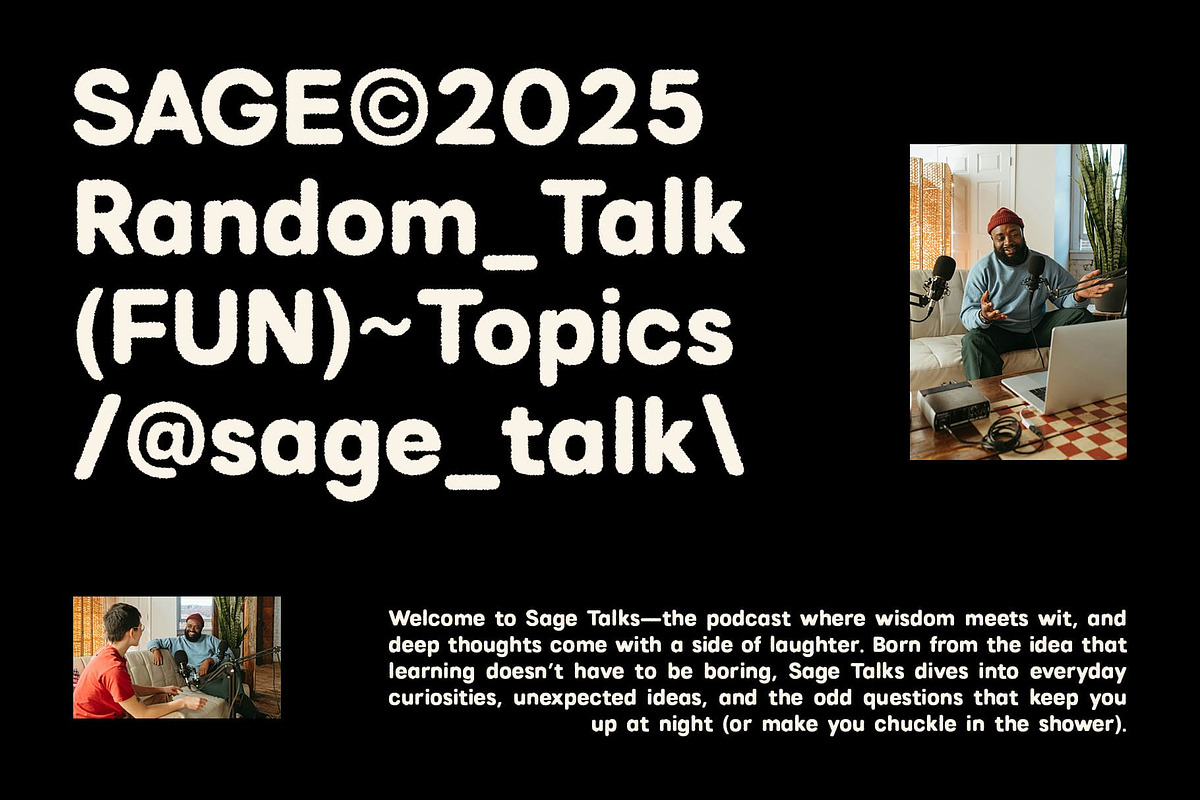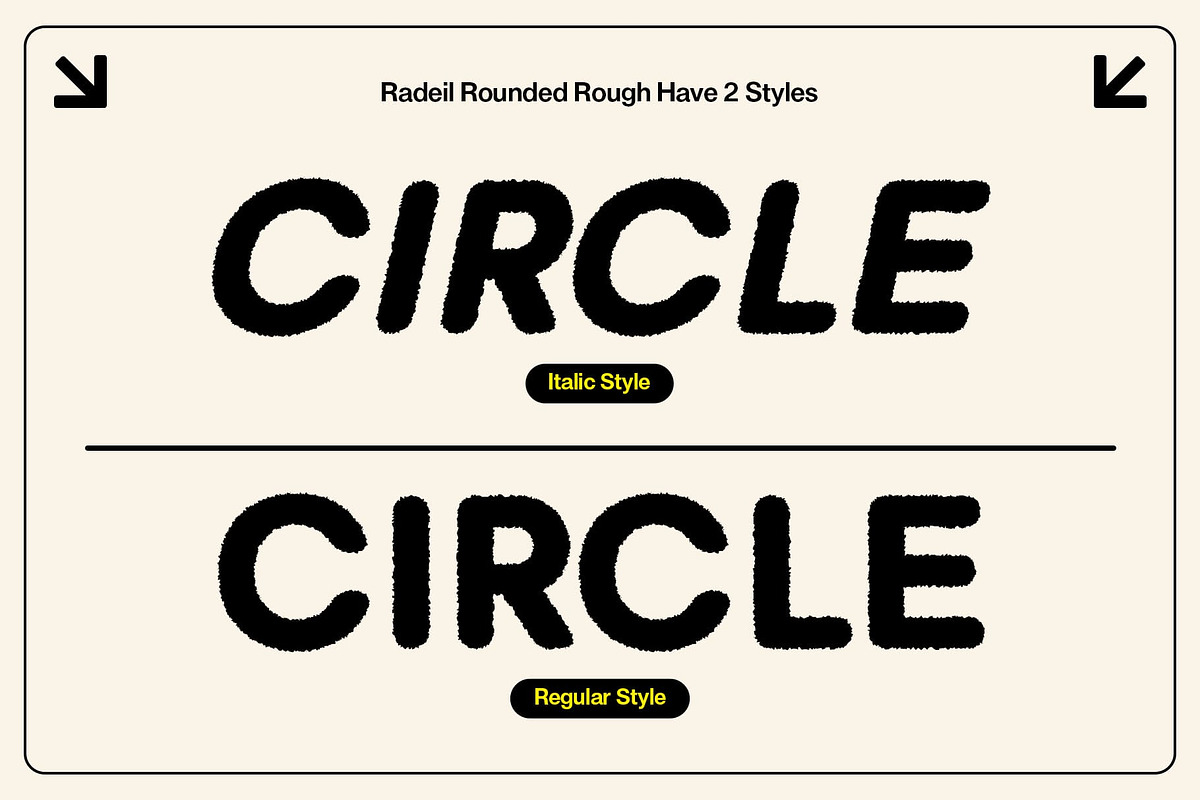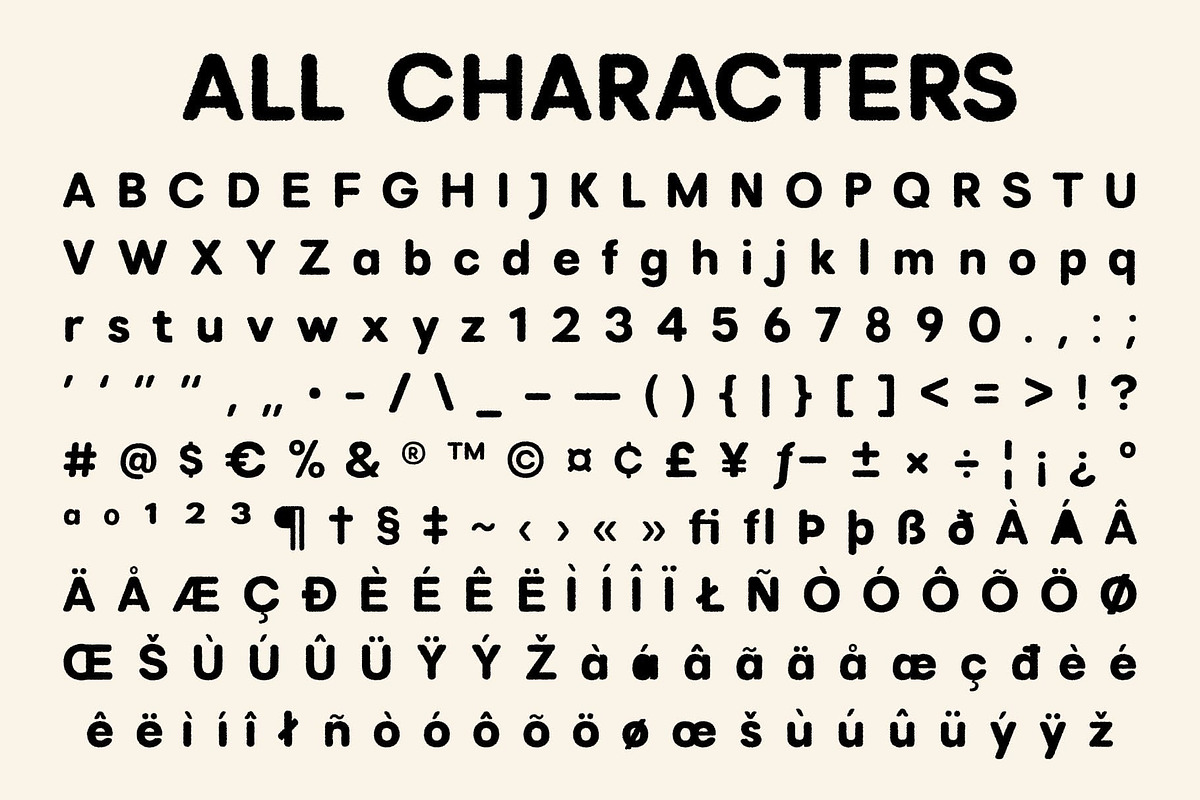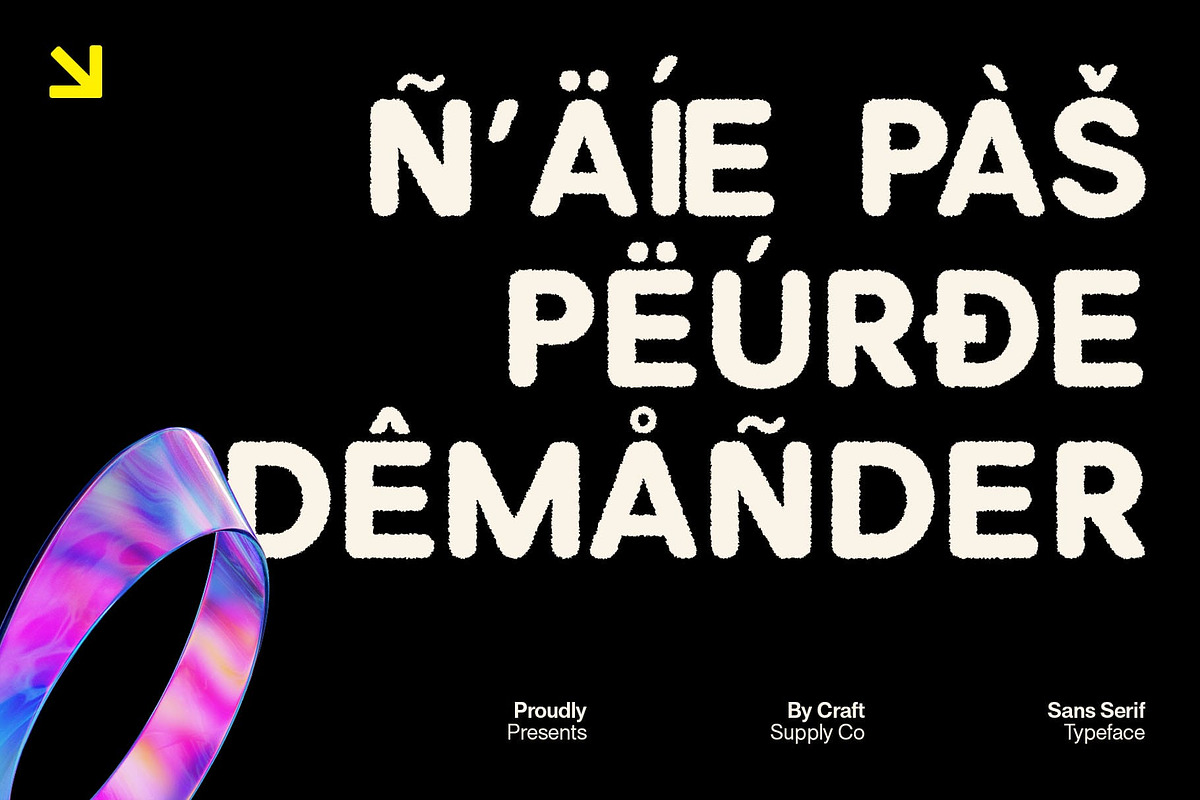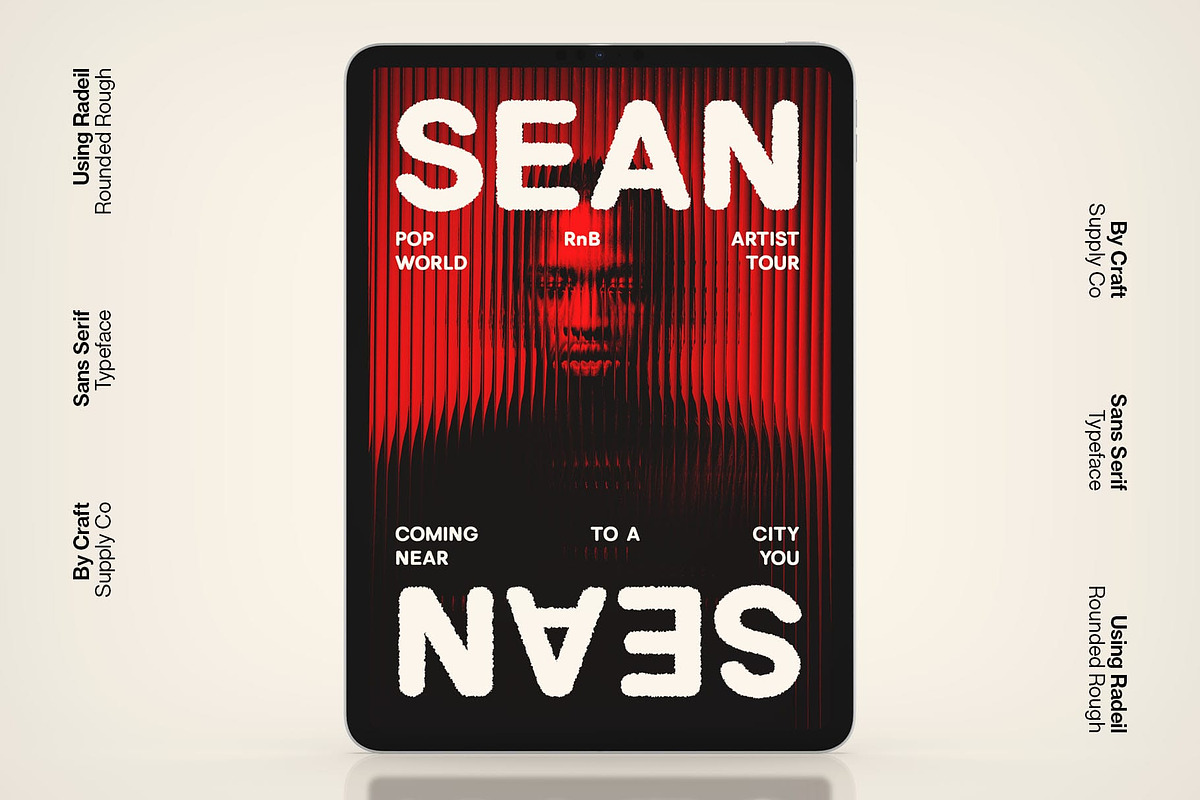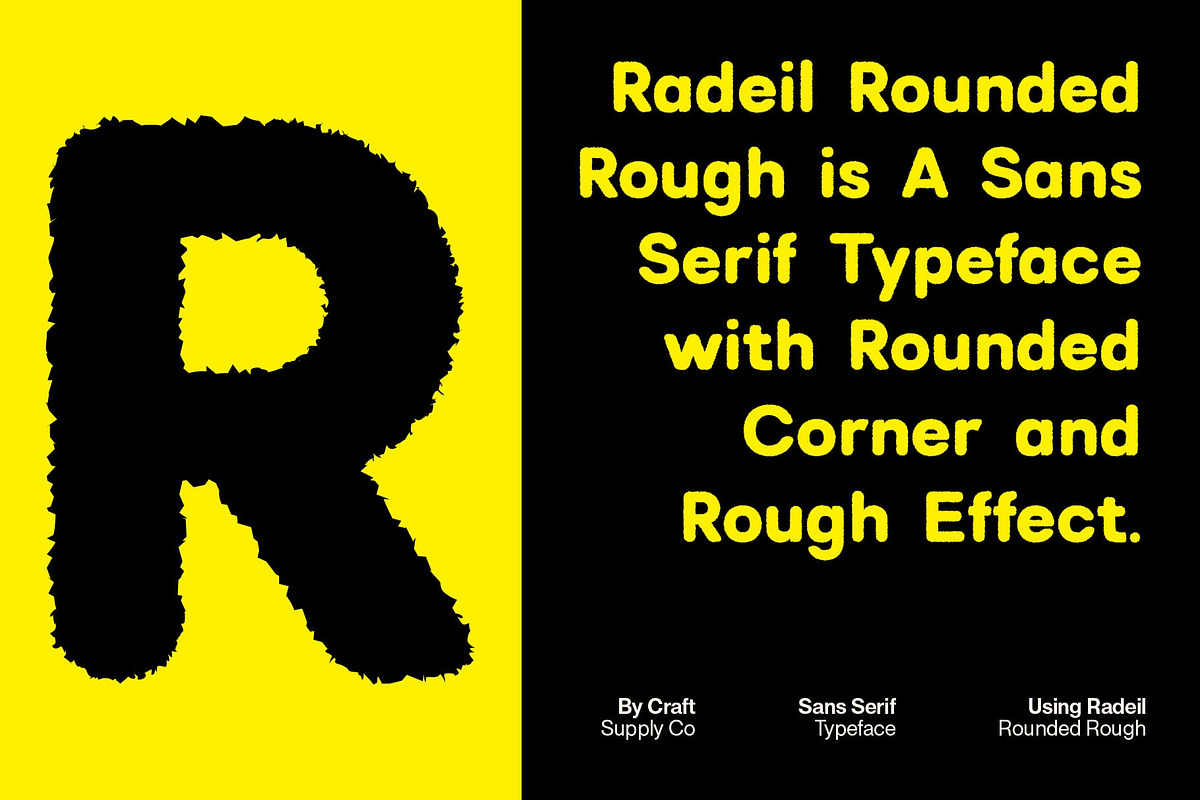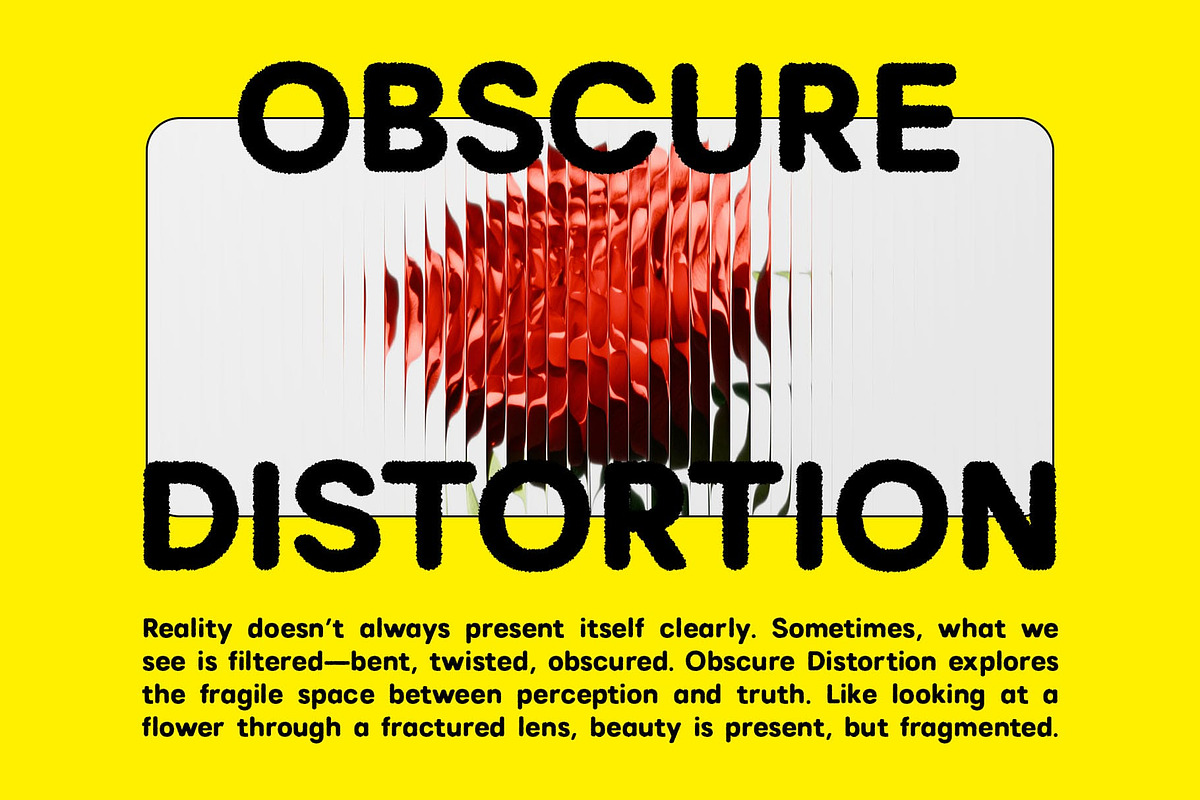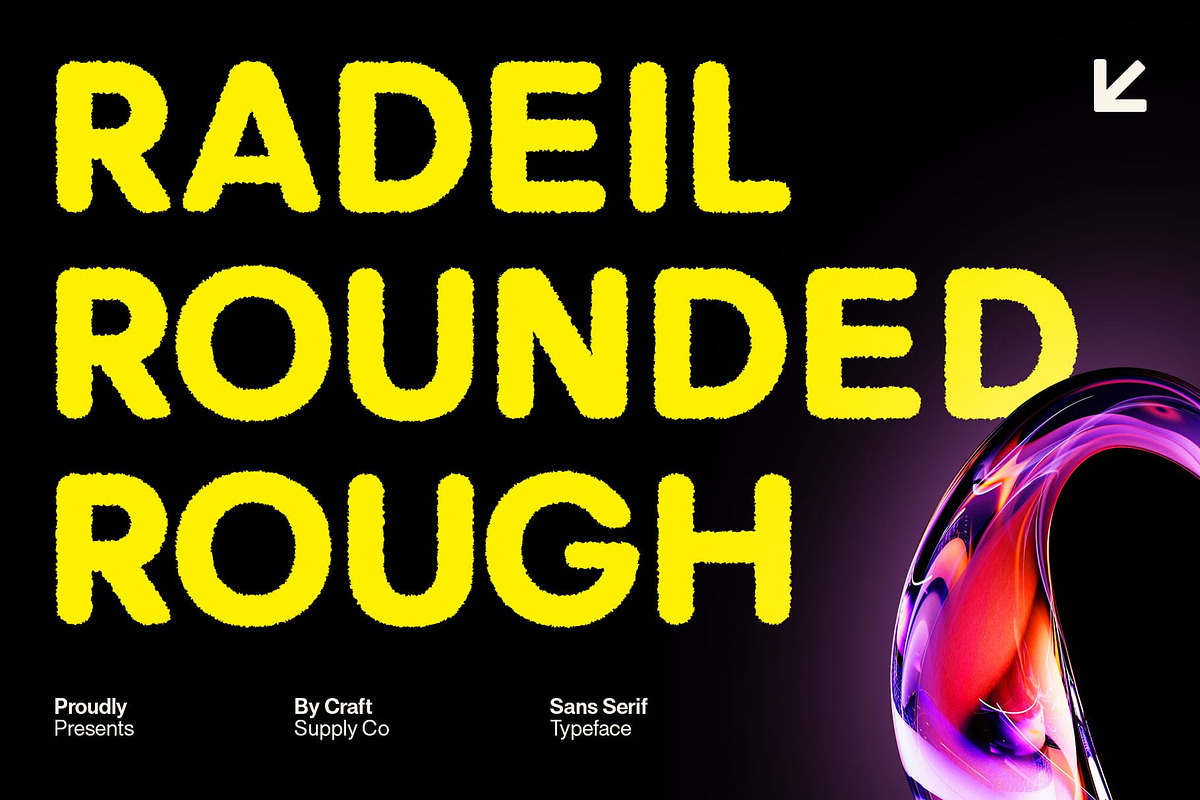
Radeil Rounded Rough
Radeil Rounded Rough – Modern Boldness with a Handcrafted Touch
Contemporary Precision Meets Warmth Radeil Rounded Rough is a modern sans serif font that combines strong geometric shapes with smooth rounded edges. This blend creates a clean, precise look balanced by a subtle rough texture that adds warmth and authenticity.
Bold and Rounded for Friendly Impact Its bold, rounded forms give the font a welcoming and approachable feel, making it perfect for brands that want to appear professional yet inviting. The rounded shapes soften the design, ensuring it communicates friendliness without losing strength. The font’s bold weight and rounded terminals enhance its friendly, approachable nature. These soft curves help soften the otherwise strong geometric structure, making it ideal for brands that want to convey professionalism without feeling distant or cold.
Subtle Rough Texture Adds Character A delicate rough texture runs through the characters, lending a handcrafted, tactile quality to the design. This textured detail adds richness and personality, allowing this contemporary font to stand out from purely digital or overly polished typefaces, making your designs feel more organic and genuine.
Ideal for Authentic, Approachable Branding Perfect for logos, packaging, headlines, and digital use, this geometric font suits brands aiming to balance professionalism with a human touch. Whether for startups, creative agencies, or lifestyle brands, it delivers a friendly yet confident voice that resonates with audiences.